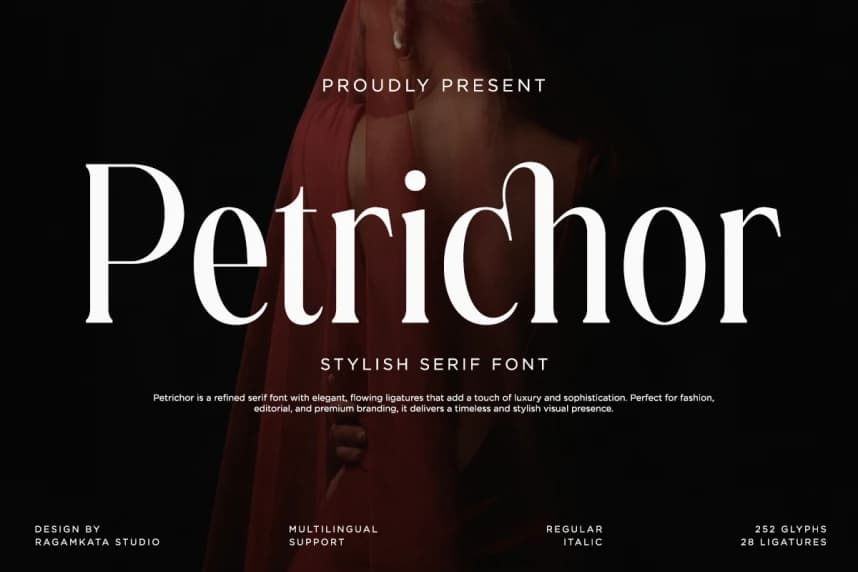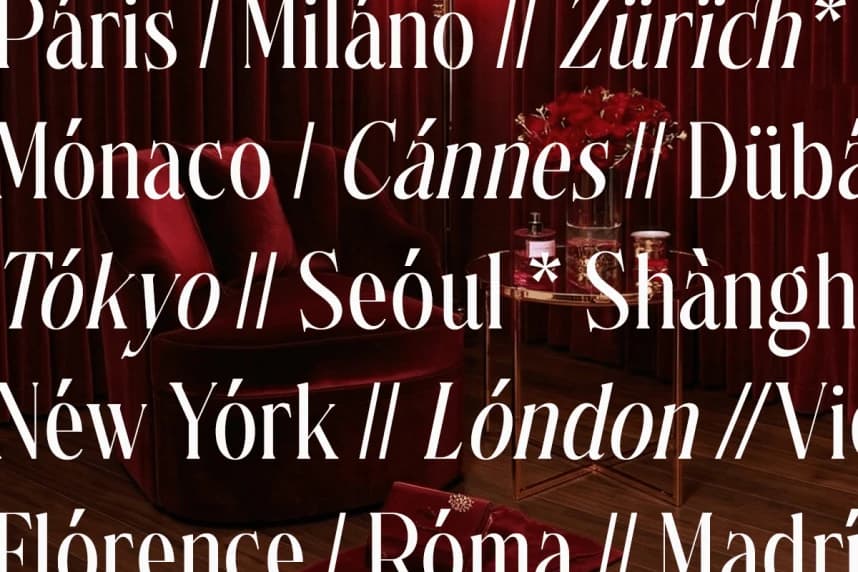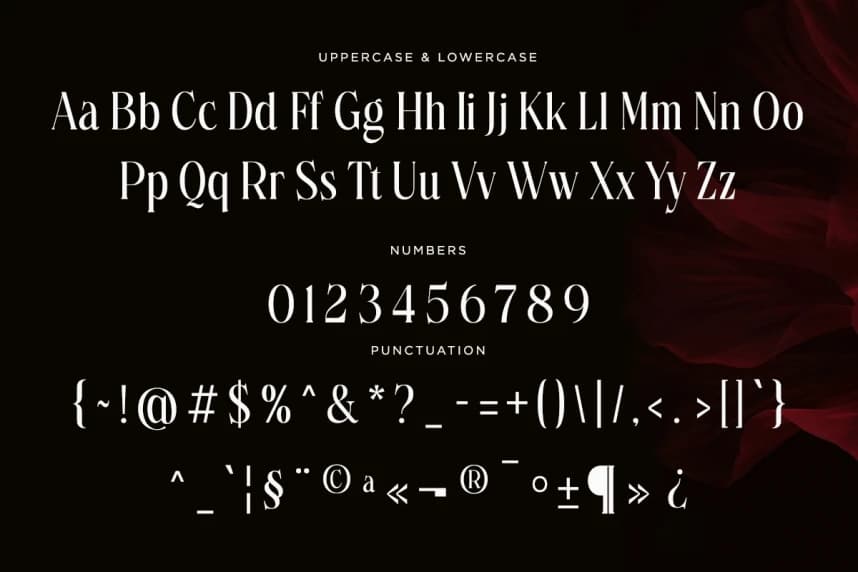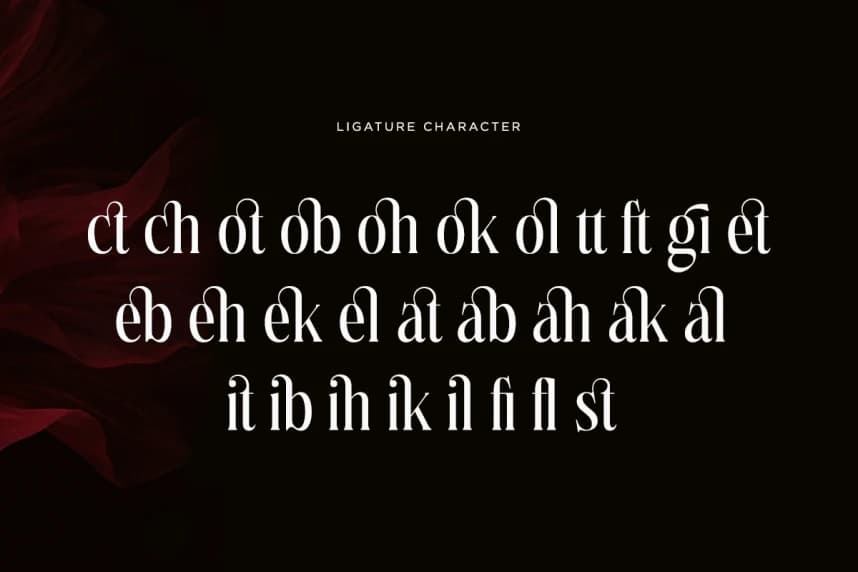
Petrichor Font
Petrichor Font is a stylish serif font that captures elegance through refined details and graceful ligatures. Inspired by the subtle beauty of luxury fashion and timeless editorial design, this typeface blends classic serif structure with modern sophistication.